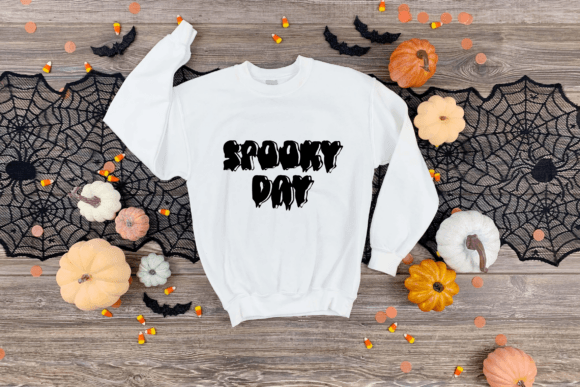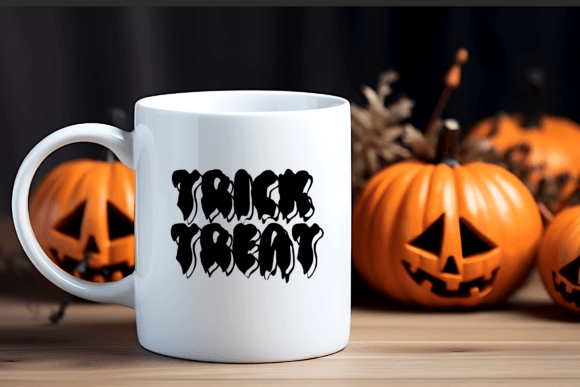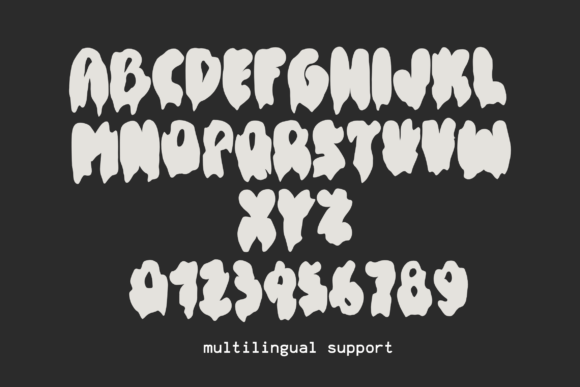
Unleash the Creepy Charm of Halloween Melted Font
As a designer, have you ever stared at a blank canvas, trying to conjure up the perfect font to capture the essence of a haunting Halloween evening? The flickering candles, the creepy creatures lurking in the shadows, and the eerie atmosphere that sends shivers down your spine – it’s a moment of creative bliss, isn’t it?
That’s where Halloween Melted Font comes in – a typeface that’s as unnerving as it is captivating. Designed specifically for the spookiest of seasons, this font is a game-changer for any designer looking to add a touch of macabre to their creations. With its unique melted drip effect, Halloween Melted Font seamlessly blends into the dark and mysterious atmosphere of Halloween, making it the ultimate choice for any horror-centric project.
Halloween Melted Font Key Features
- Size: The font is available in a single weight, making it ideal for creating a cohesive and uniform look.
- Unique Characteristics: The font features a distressed, melted look, giving it a spooky and eerie feel perfect for Halloween-themed designs.
- Resolution: The font is designed to be high-resolution, making it suitable for use in various mediums, including print and digital applications.
- Legibility: Despite its distressed appearance, the font remains legible and easy to read, making it suitable for body text and headings.
- Scalability: The font is highly scalable, allowing it to be used in a wide range of sizes, from small text to large headlines.
Halloween Melted Font Review
Overall, I think the Halloween Melted Font is a fun and creative addition to any spooky-themed project. ✨ The unique, melted effect on the letters gives it a playful, eerie vibe that’s perfect for Halloween decorations, party invitations, or even horror movie titles.
The font is quite versatile, and it can be used in a variety of contexts, from bold and dramatic to whimsical and cartoonish. ✨ I appreciate the fact that it’s a single font file, making it easy to integrate into your design projects.
While the Halloween Melted Font is a great addition to any spooky-themed project, there are a few limitations to be aware of: ⚠️
- It’s not suitable for use in formal or professional contexts, as it’s quite playful and might not be taken seriously.
- The font is not scalable, so it’s best used in a fixed-size format to avoid any distortion or blurriness.
- It’s not a fully-featured font, so it might not include all the characters you need for your project.
Overall, I think the Halloween Melted Font is a great choice for any spooky-themed project, as long as you’re aware of its limitations. With a little creativity, it can add a unique touch to your designs.
For the most effective use of the Halloween Melted Font, consider the following tips:
- Use it in bold and colorful text to create a spooky atmosphere.
- Pair it with other Halloween-themed graphics and fonts for a cohesive look.
- Experiment with different font sizes and spacings to create visual interest.
The Halloween Melted Font is ideal for:
- Halloween party invitations and decorations.
- Spooky social media posts and graphics.
- Horror movie and
Comparison: While Halloween Melted Font has a more abstract, melted look, Creepster Font has a more defined, dripping texture that can add a sense of movement and energy to designs.
2. Grunge Font
Grunge Font is a distressed, textured font that can add a rugged, edgy feel to designs. It’s suitable for use in rock music-themed designs, horror movies, or any other project that requires a rough, industrial look.